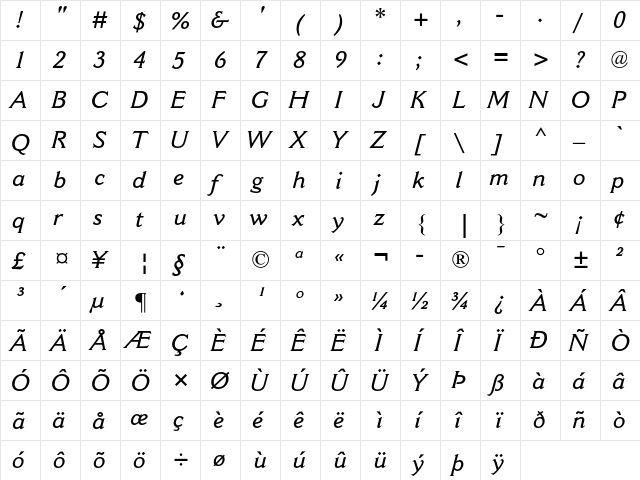
Cantoria MT Semibold Italic Font Preview
Cantoria MT Semibold Italic
Design Context for Cantoria MT Typeface
Cantoria MT is a composed and adaptable typeface that performs quietly and consistently across a wide range of design contexts. The slanted form adds forward momentum and visual energy. The heavy weight commands attention and anchors typographic hierarchies.
Pro Tip: Use Cantoria MT for emphasis, pull quotes, and subheadings where its slanted energy can add rhythm to the layout.